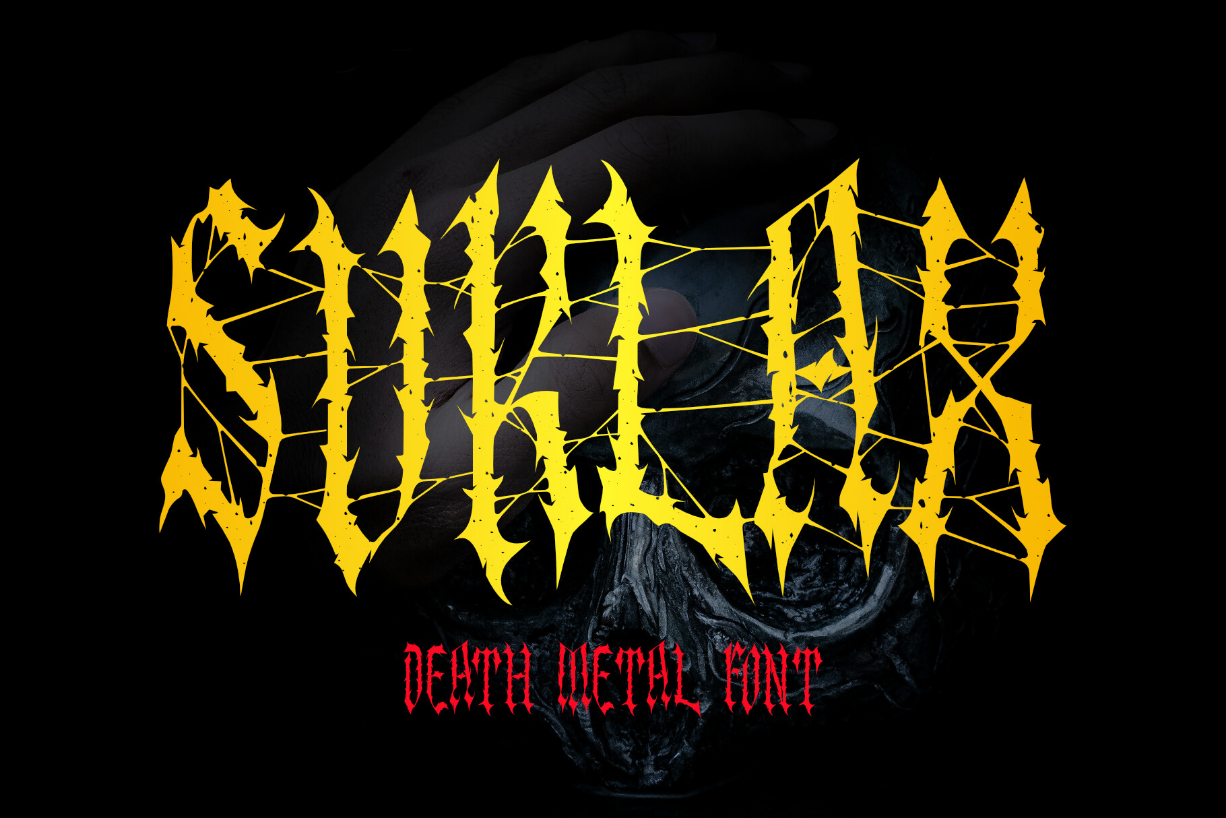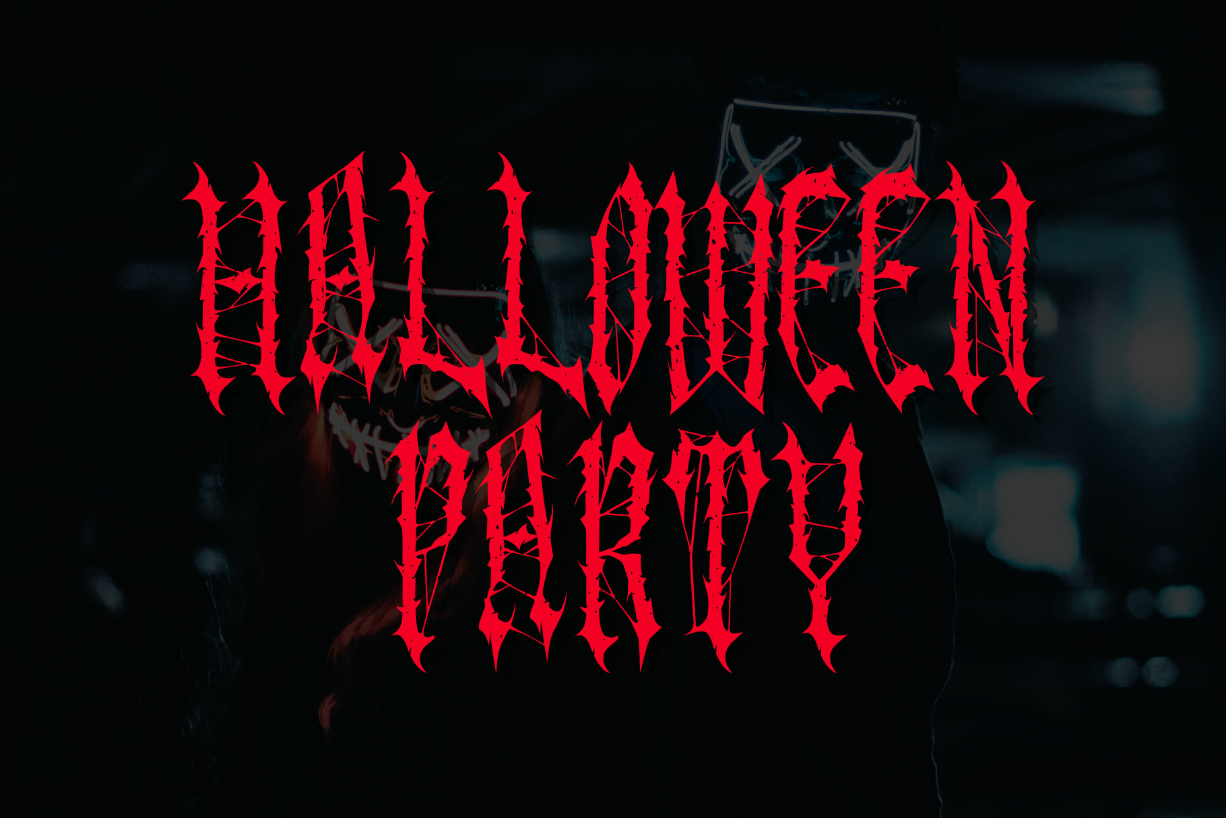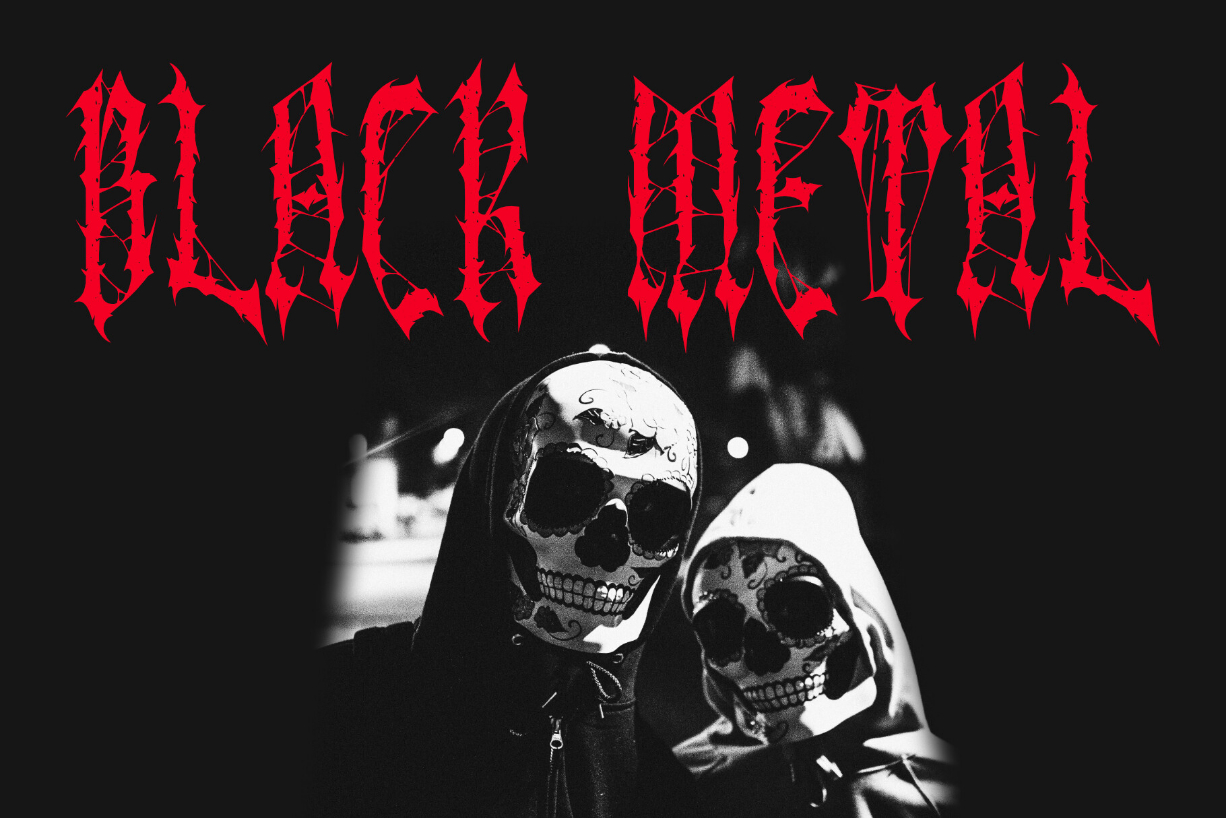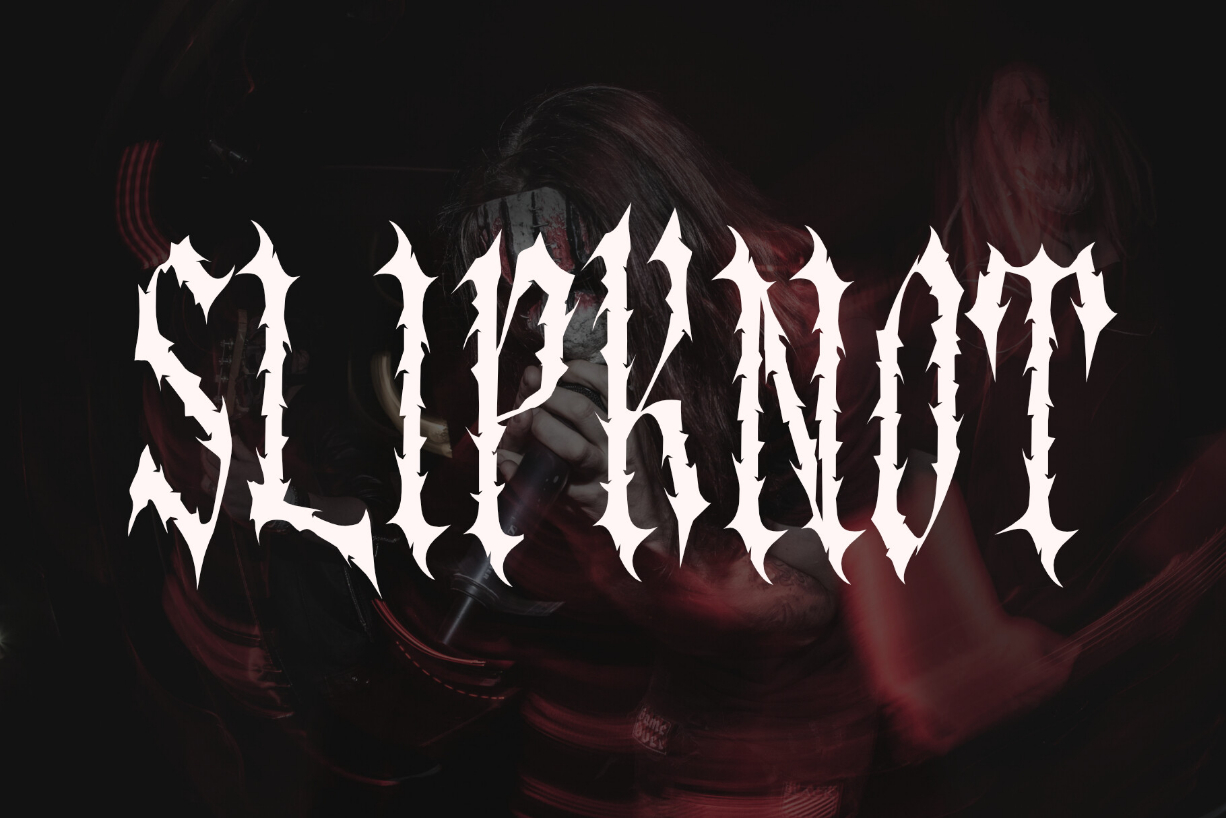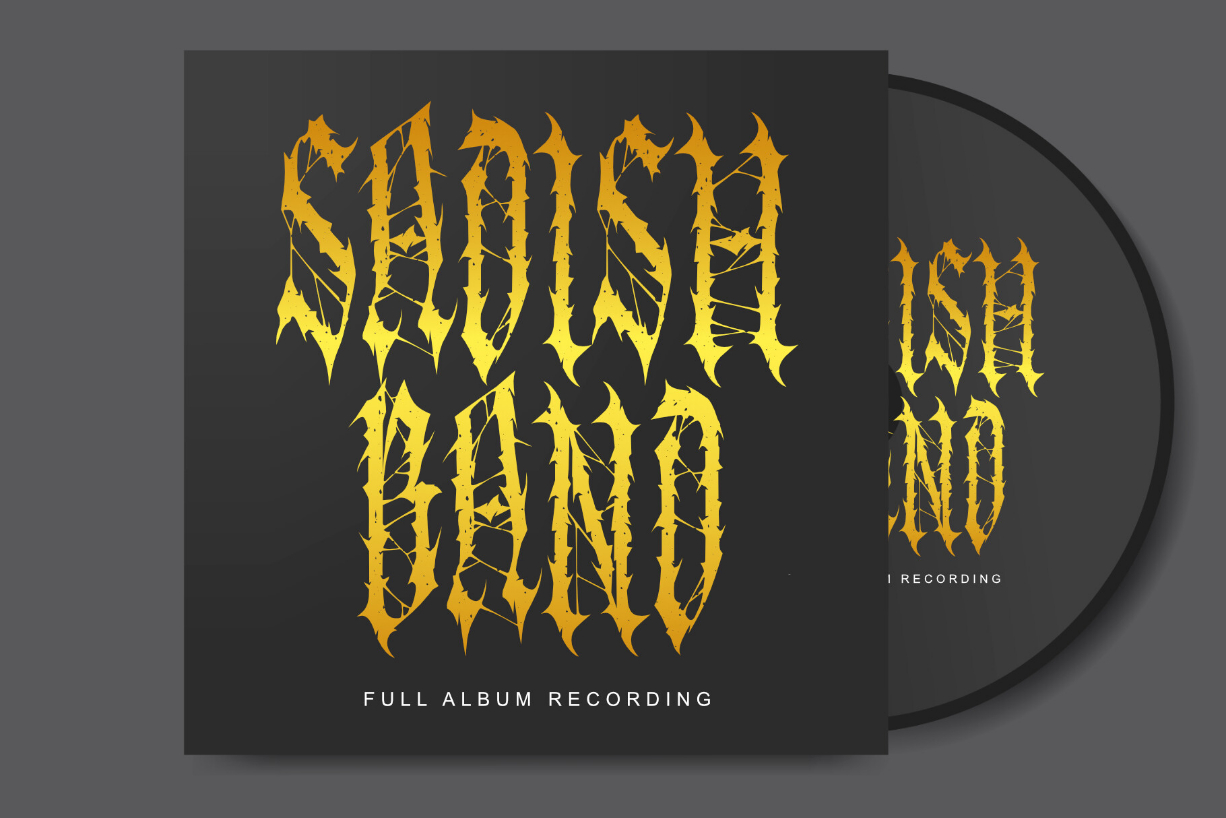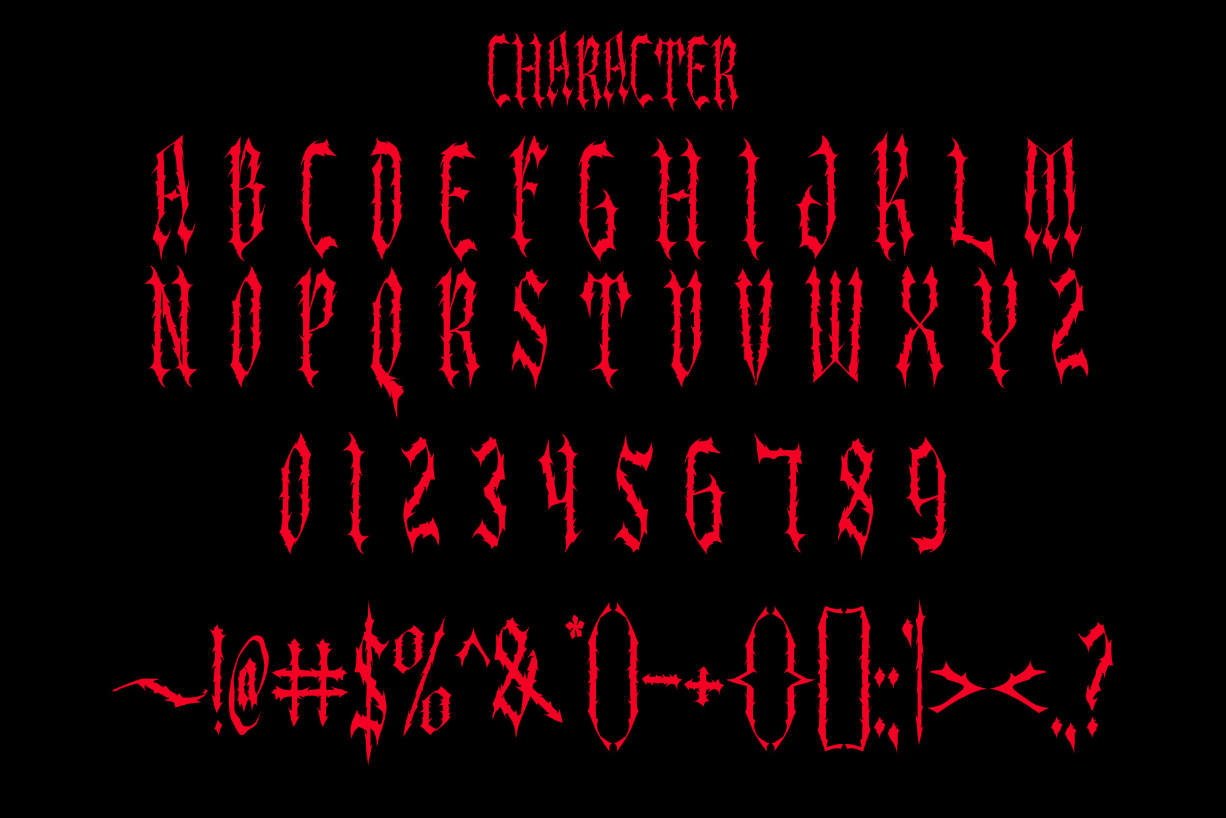
Suklax Font
About Suklax Font
Suklax is a cool blackletter font, drawing inspiration from death-metal aesthetics. Its sharp angles and bold strokes evoke a sense of power and intensity, perfect for band logos, album covers, and edgy designs. With Suklax, your text commands attention, embodying the raw energy of the metal genre with style.